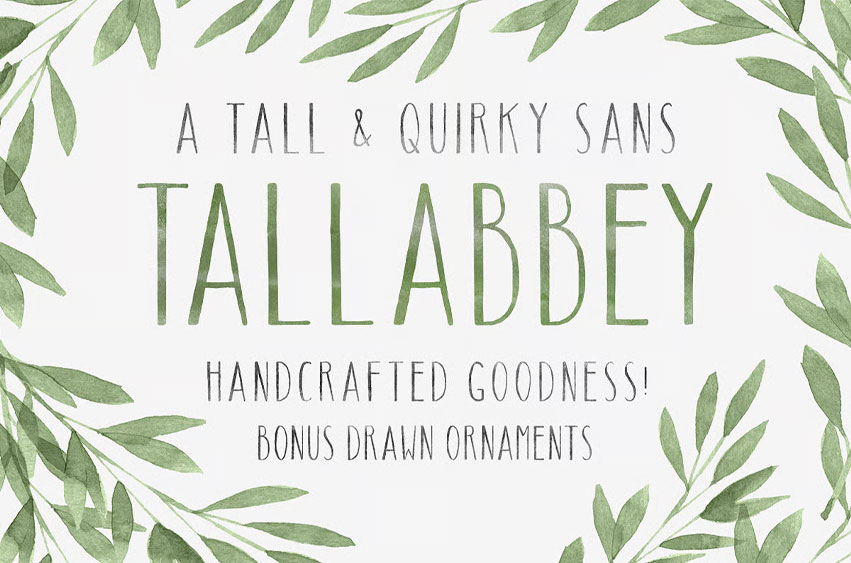
Tall Abbey Font
Tall Abbey Font was based on my partner’s handwriting, and with a few tweaks here and there, it turned into one of my all-time favorite fonts. Recently, I have extended Tall Abbey’s glyph range to cover all Latin 1 glyphs. In addition to this, I’ve added a variety of hand-drawn bits and pieces that you can use to build your custom designs that beautifully complement this tall font.